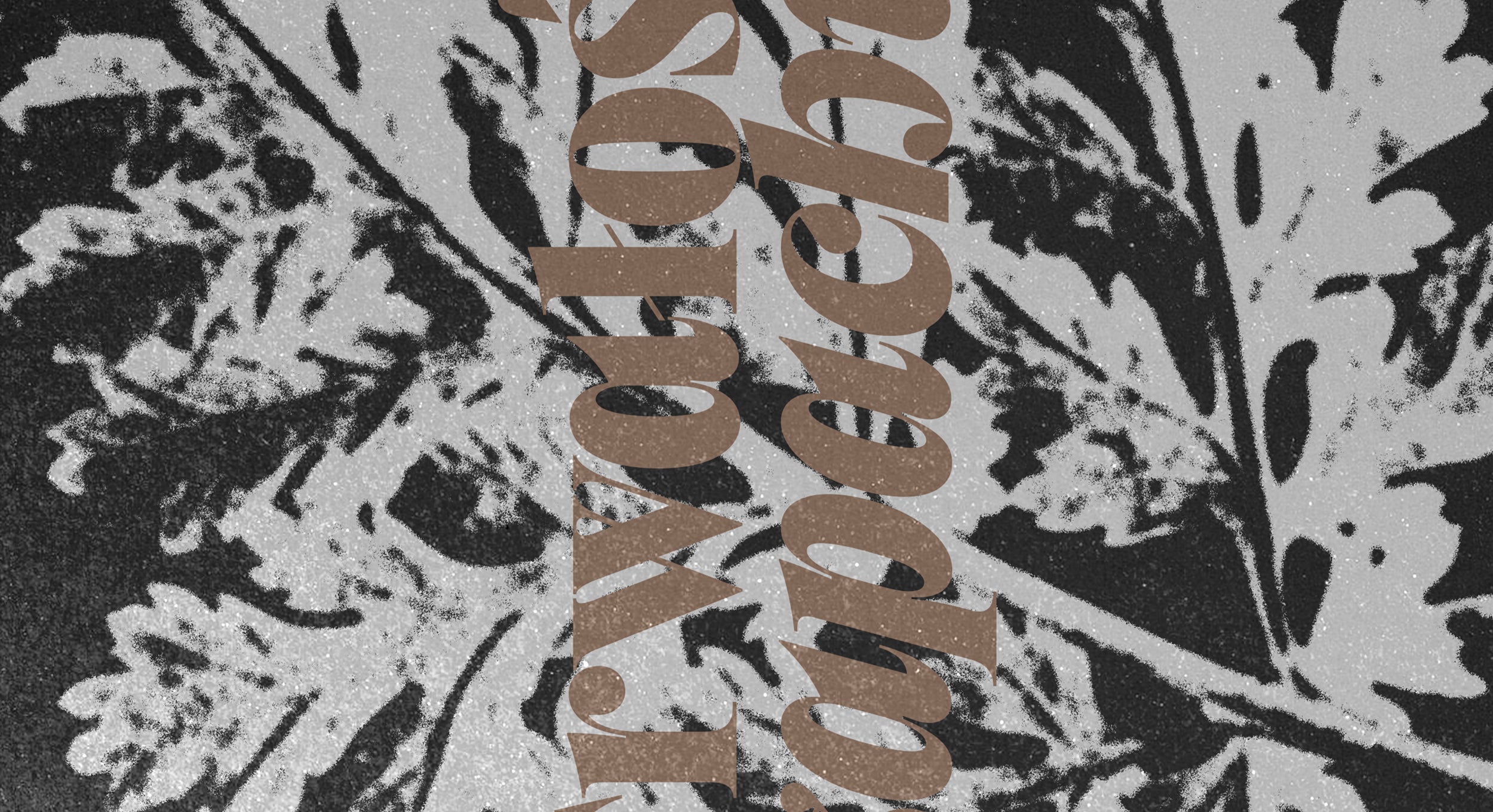
Miniature welcomes the theatrical and the restrained, flexibly balancing both with its sturdy baroque structure.
Miniature welcomes the theatrical and the restrained, flexibly balancing both with its sturdy baroque structure whilst (quite literally) standing out from the crowd due to its unconventionally tall x-heightโcontent in all its eccentricities.
The result of Miniature's balance of flamboyance and functionality is an earnest display font, best suited for punchy postmodern brands, editorial explorations and contemporary cultural exhibitions. Ranging from light to black across five distinct weights, you can count on Miniature to match your creative wants and requirements.